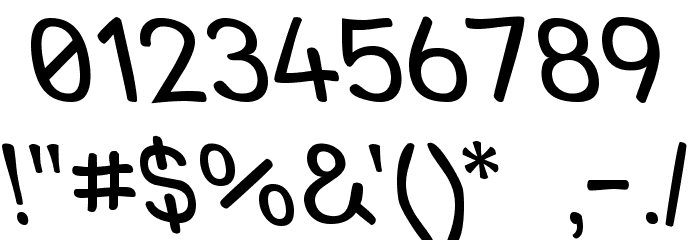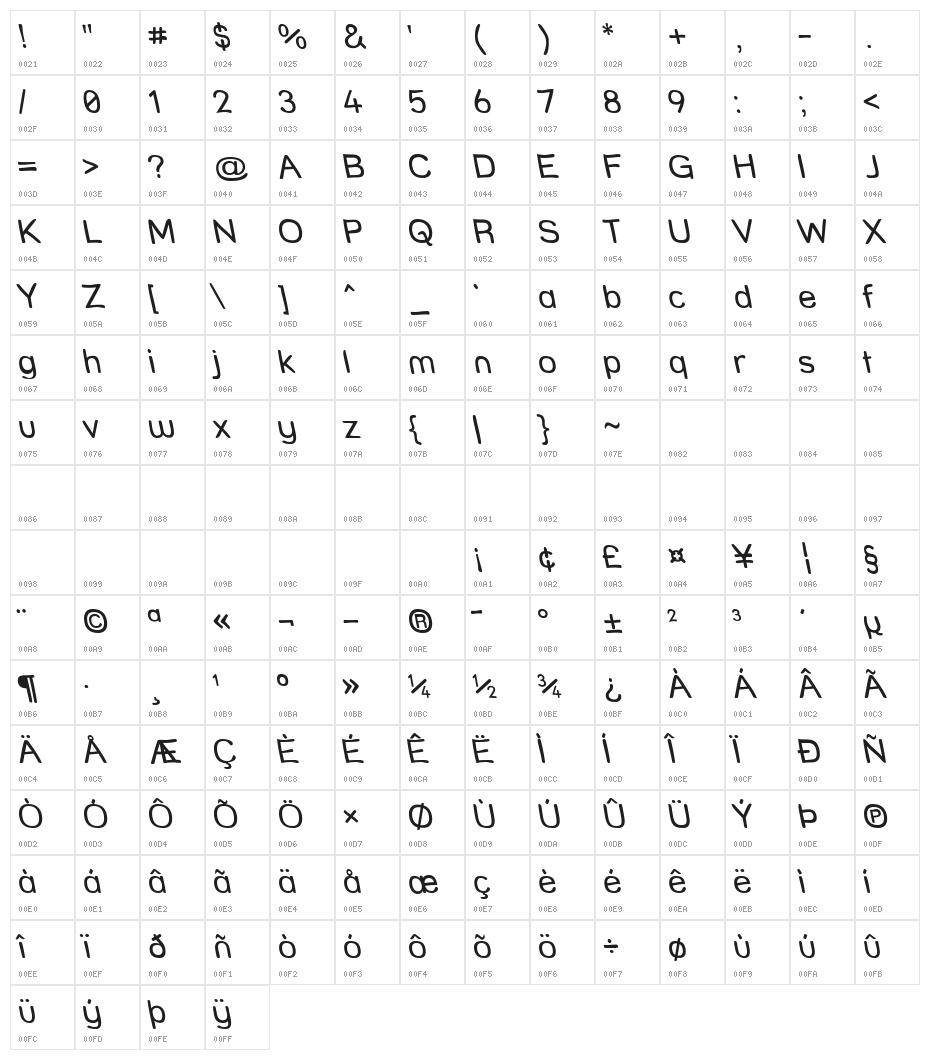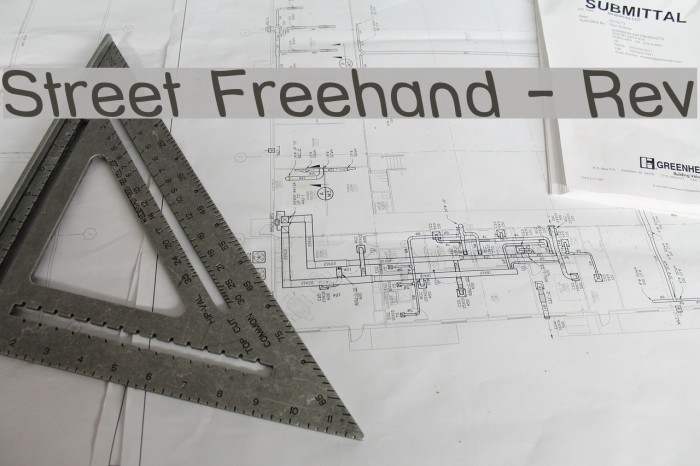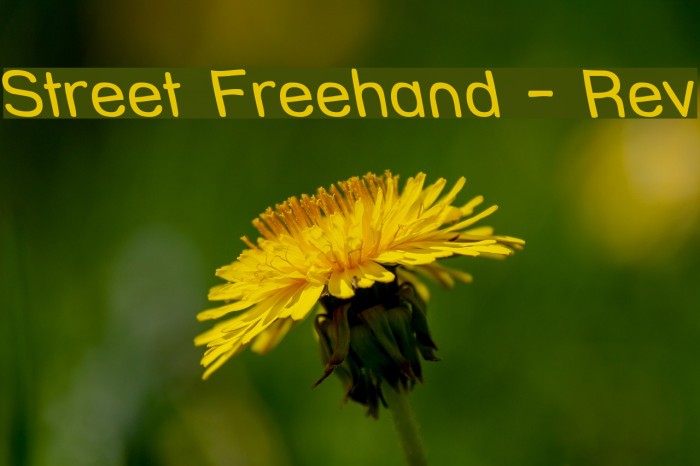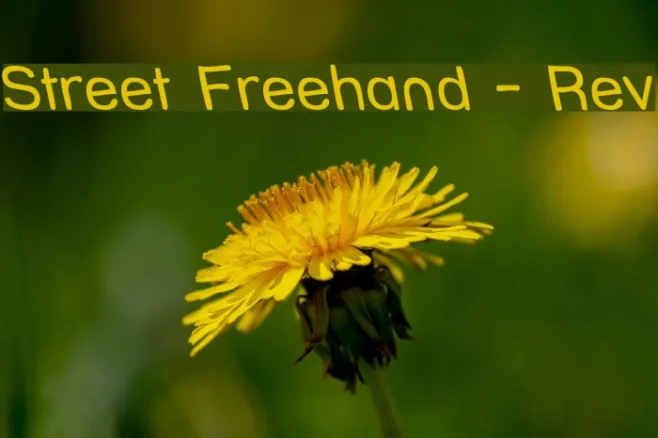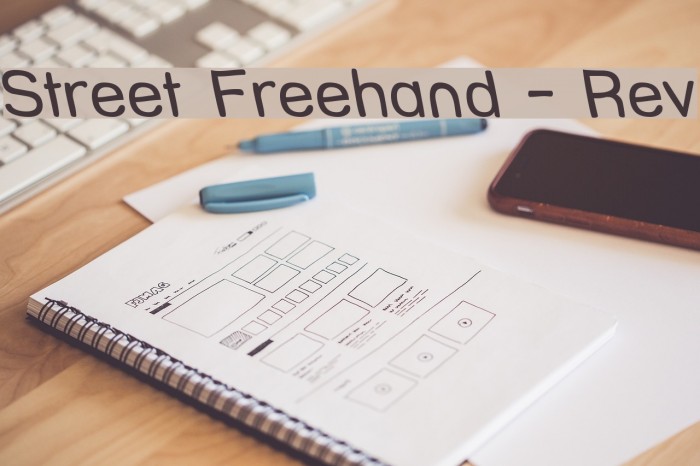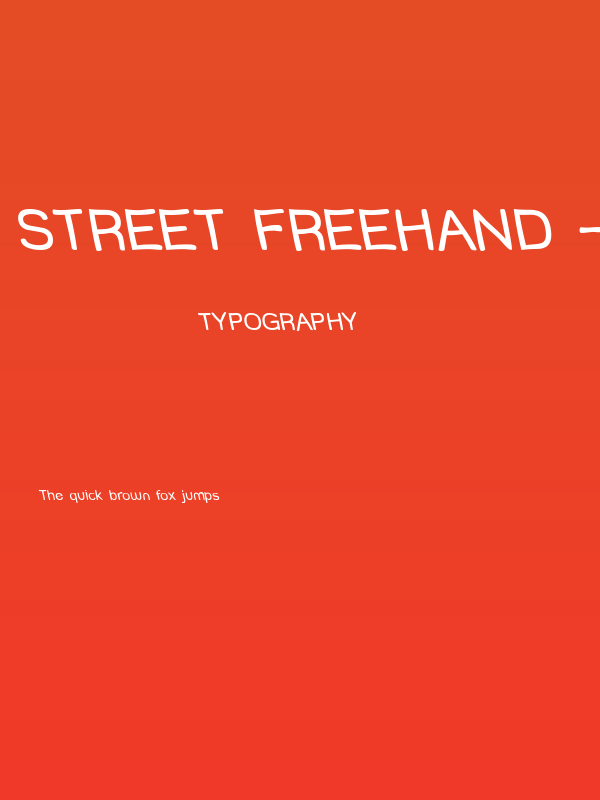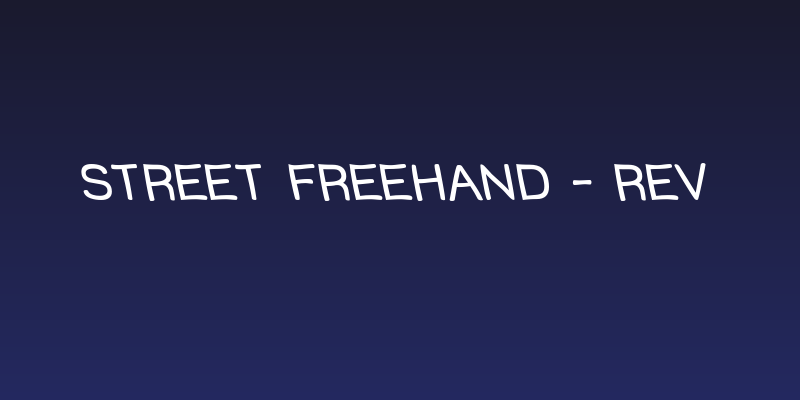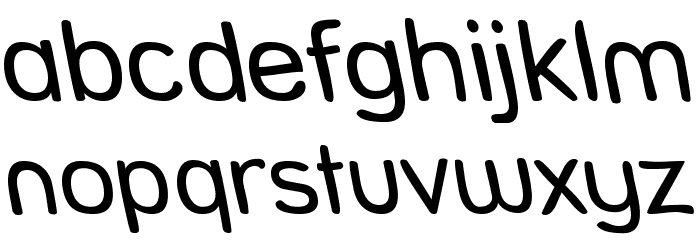
Street Freehand - Rev Font
Street Freehand - Rev Description
This font features a casual and playful style with a handwritten appearance. The characters are rounded and slightly irregular, giving it a friendly and approachable feel. The uppercase and lowercase letters maintain a consistent flow, while the numbers and special characters complement the overall design. The strokes are uniform in thickness, contributing to a clean and modern look. This font is versatile and can be used in various creative projects where a personal touch is desired.
| Proposed Projects | Ideal for greeting cards, children's books, casual branding, and social media graphics. |